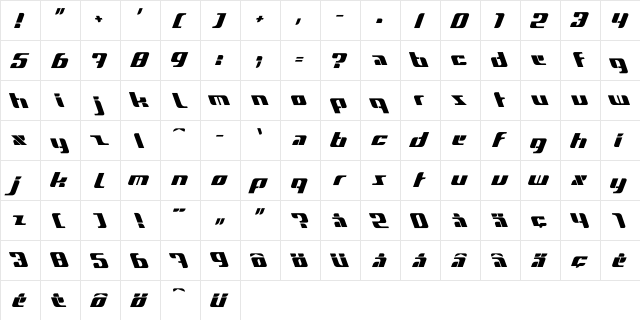
Fazer Regular
Design Context for Fazer Typeface
Fazer is a composed and adaptable typeface that performs quietly and consistently across a wide range of design contexts.